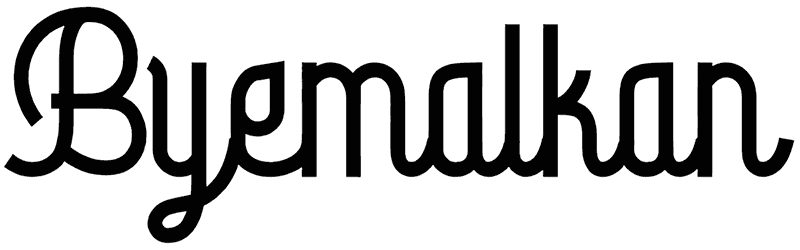
Byemalkan Font
In a nutshell, Byemalkan is a script font with rounded and stretched edges that makes your artwork, such as brochures, flyers, applications, and posters beyond imagination. Due to its eye-grabbing look, it is able to engage the audience with its content at first glance. Also, it carries a sense of dynamism, personalization, and exoticism.